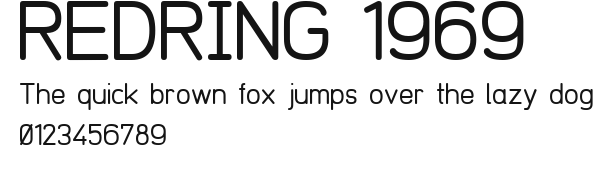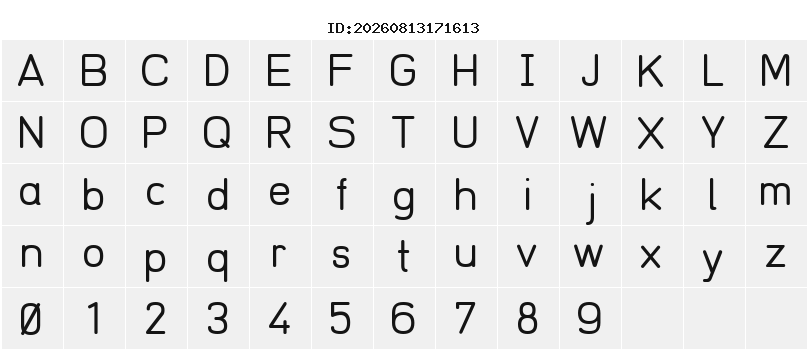
• Font Name: REDRING 1969
• Full Font Name: REDRING 1969
• Designer: E. V. Norat II
• Manufacturer: E. V. Norat II
• Description: FONT NAME: ROTRING 1969 Copyright (c) 2008 by E. V. Norat II. All rights reserved. This font is similar, but not exact, to characters made with a Rotring type of Drafting/Architectural lettering guide(s). This guide is used with specific drafting pen sizes to produce text, generally on blueprints. Styles include regular, bold, italic and bold italic. Circa 1969.
REDRING 1969.ttf is a modern, elegant sans-serif font designed for ultimate readability and visual harmony. Perfect for branding, headlines, web design, and print materials.